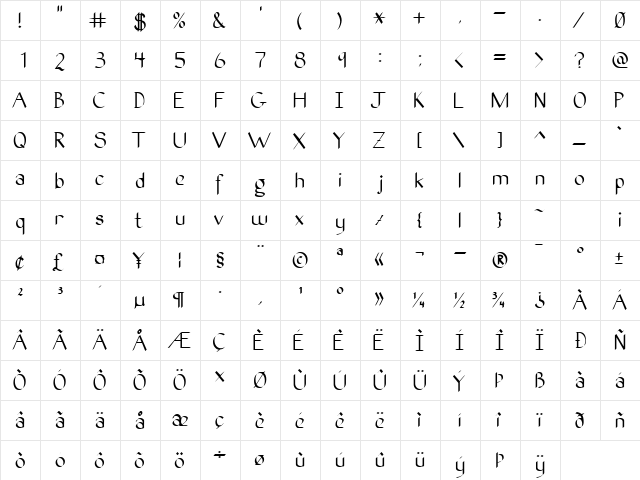
JGJackson Fountain Regular
Design Context for JGJackson Fountain Typeface
JGJackson Fountain takes a measured approach to typography — its balanced proportions and neutral character make it a reliable workhorse for both digital and print work.